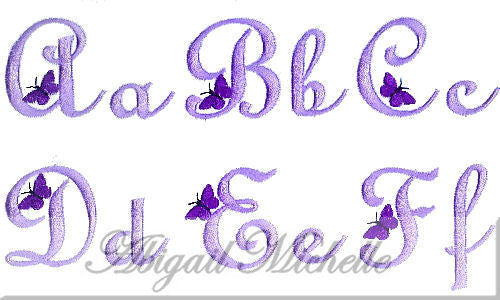
Butterfly Alphabet Font Set Machine Embroidery
Color sequence:
1) Letter
2) Butterfly wings (for upper case letters)
3) Black center and antennae (for upper case letters)